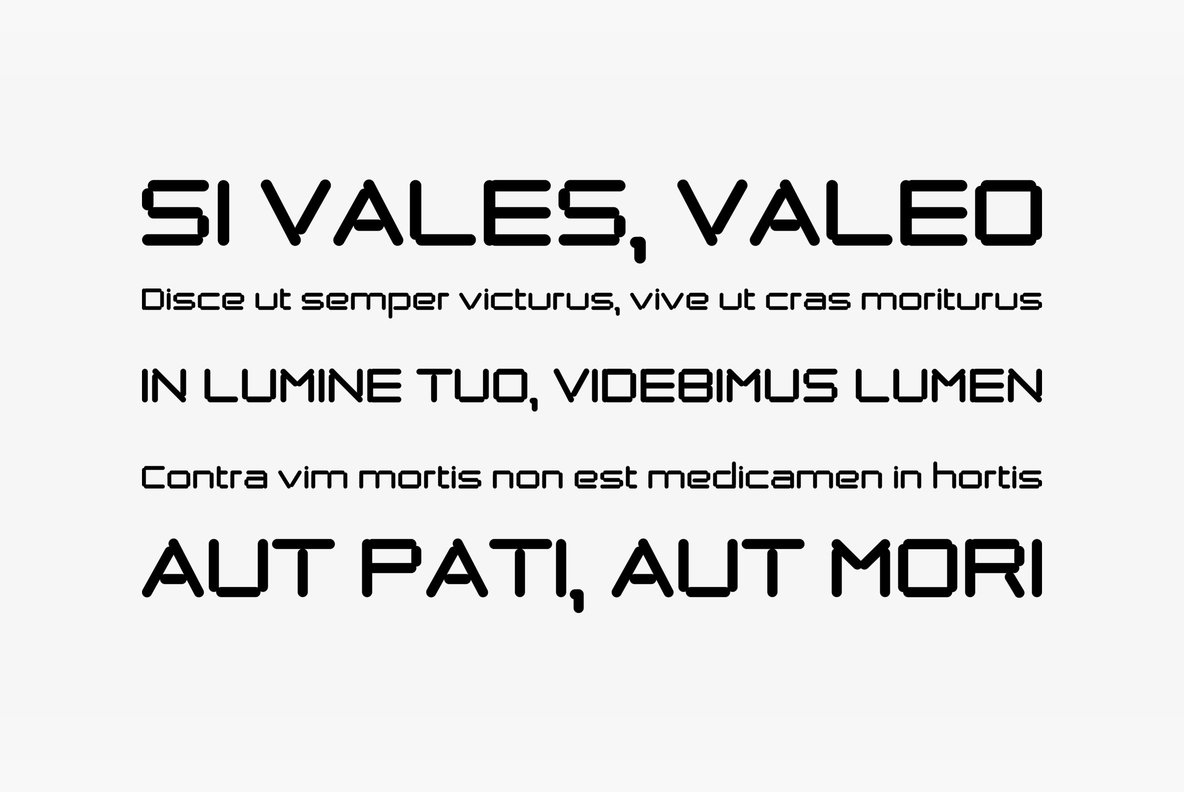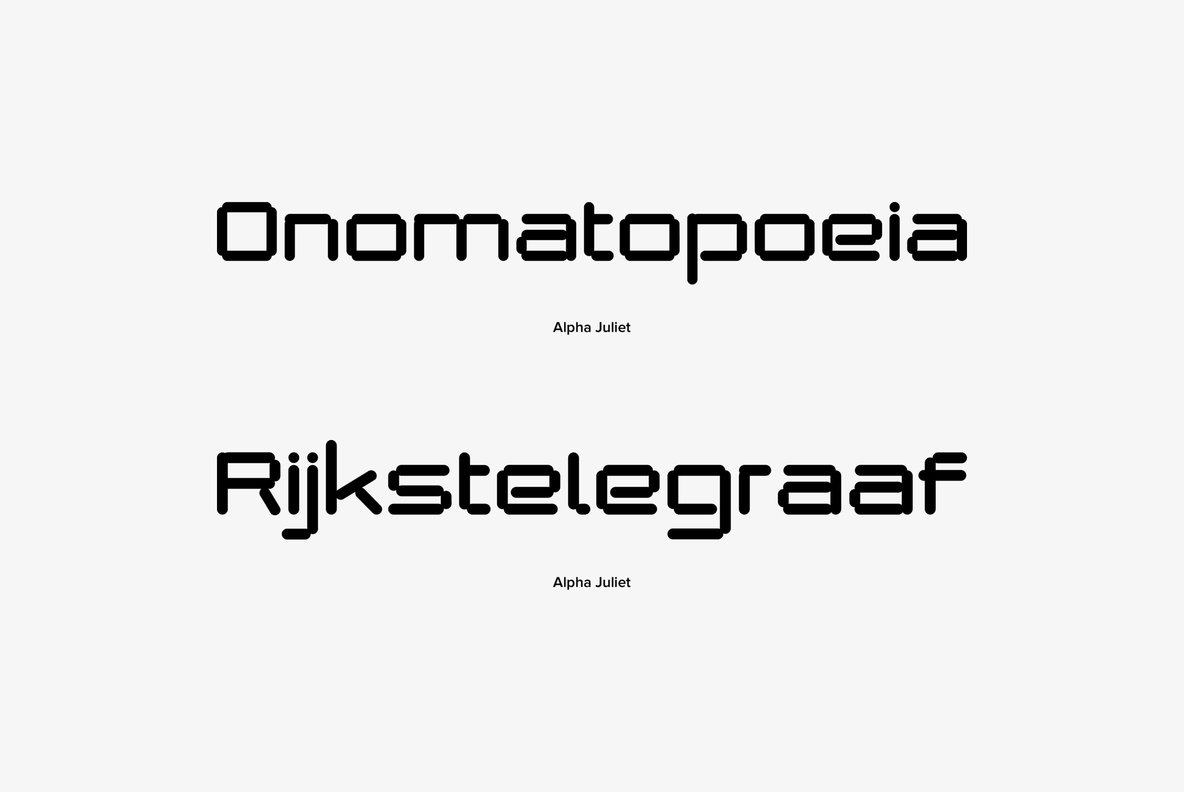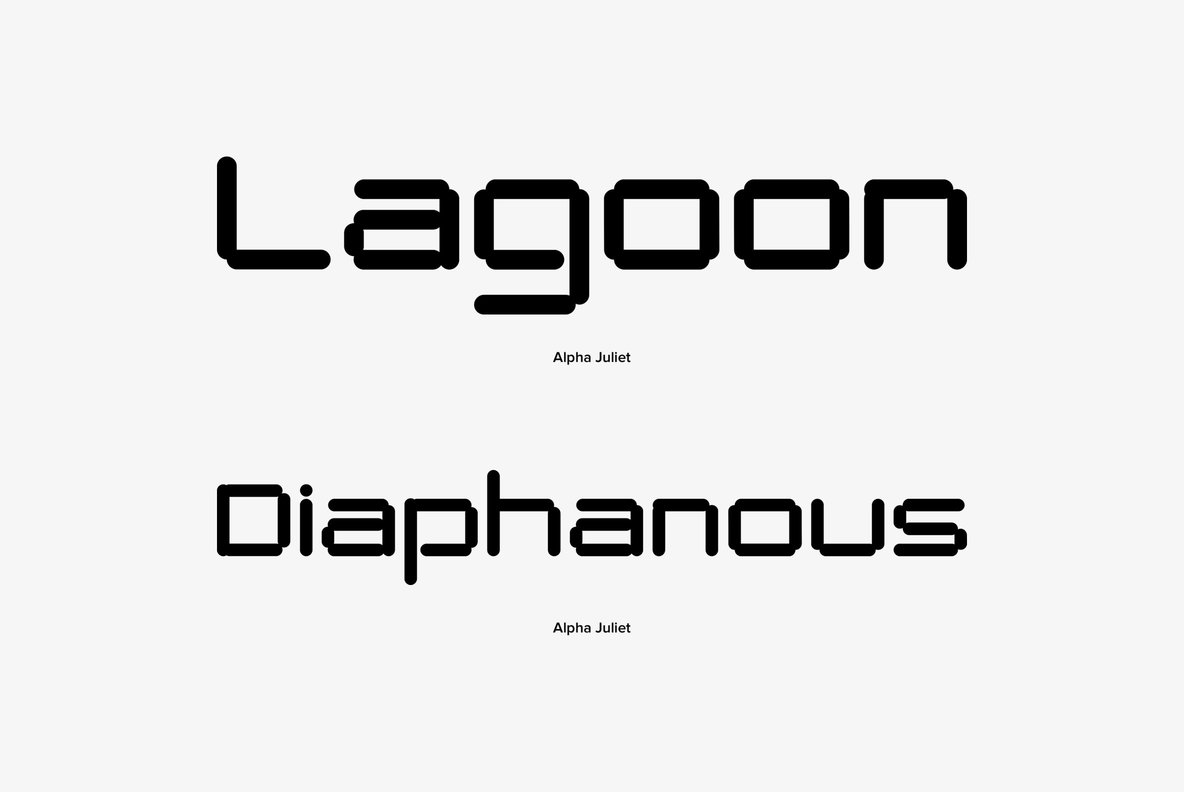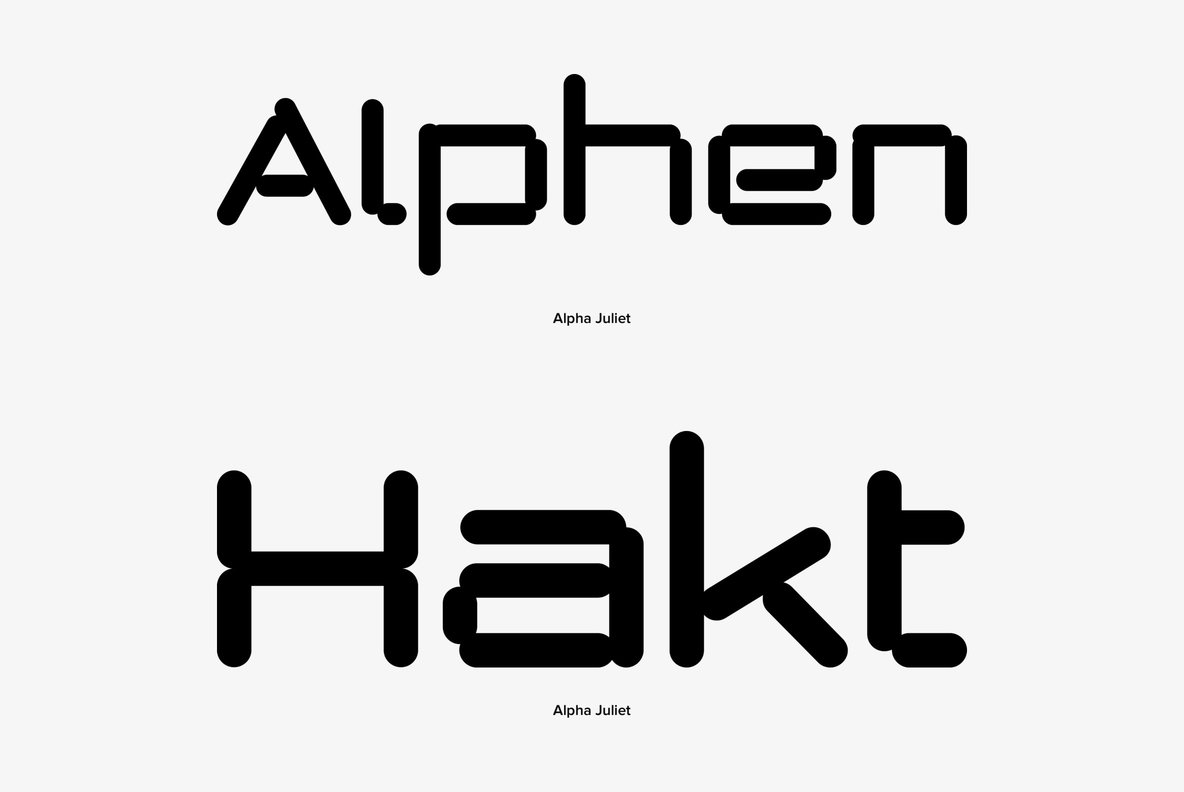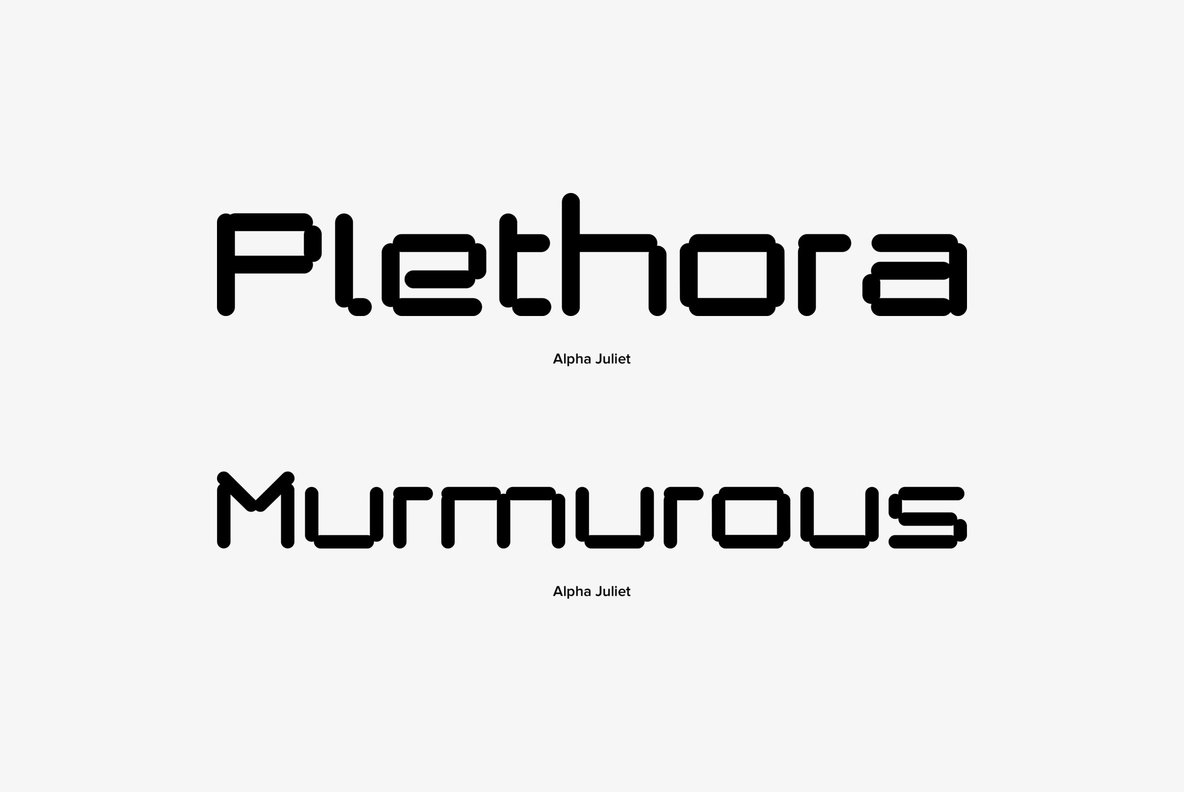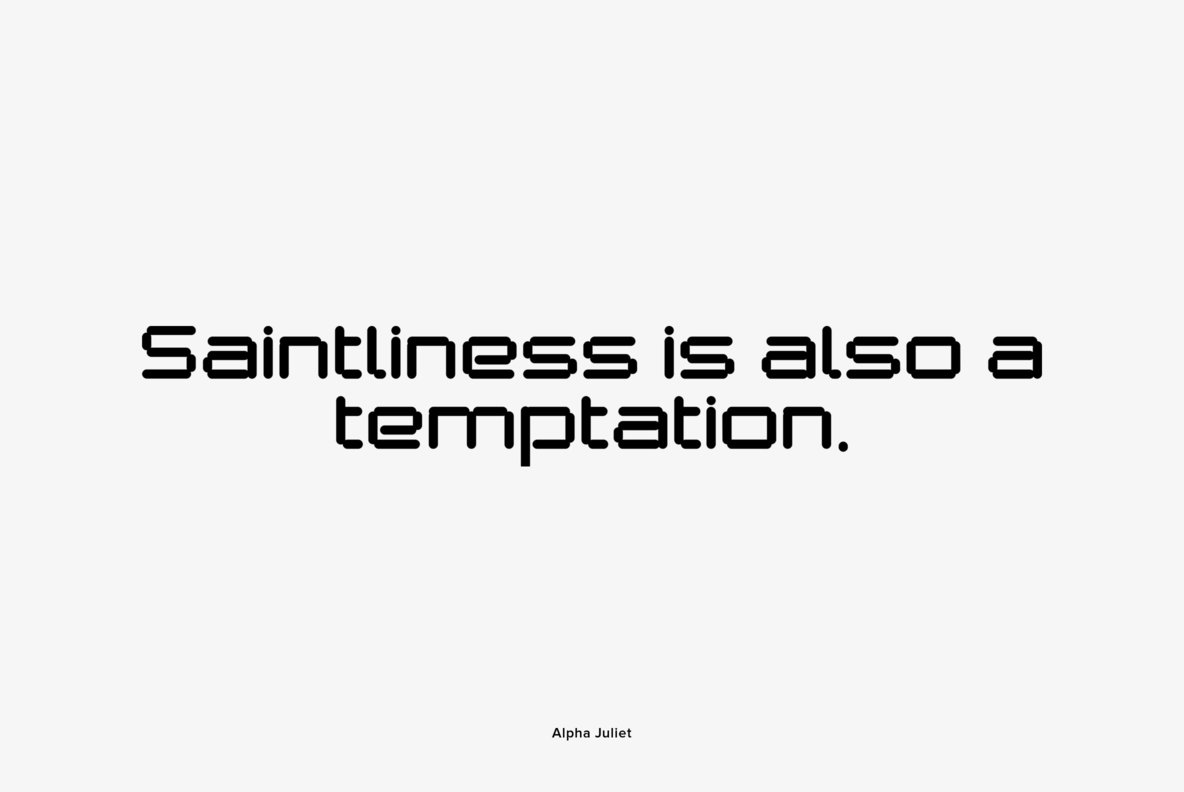
"Alpha Juliet" is another font in my alpha-series, the experimental font series. It lends itself for modern designs in all forms. The font can be used together with "Alpha Papa" since it has the same origins.